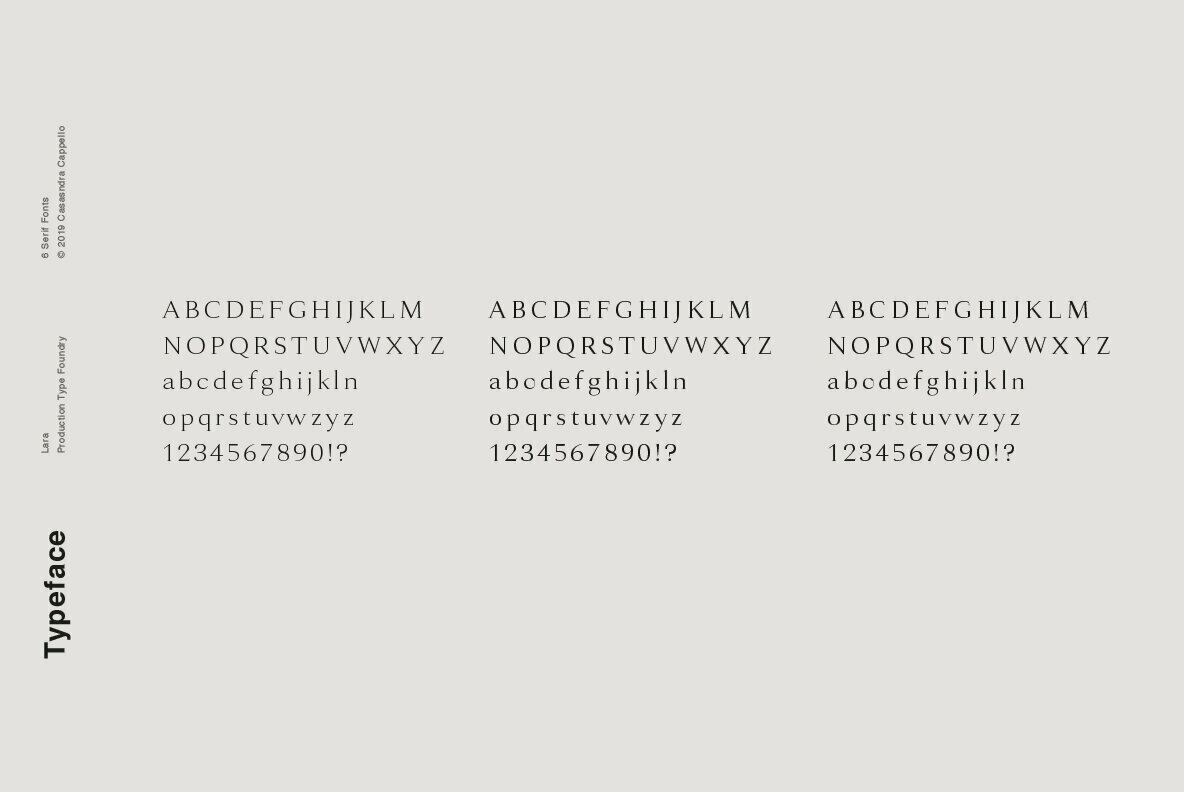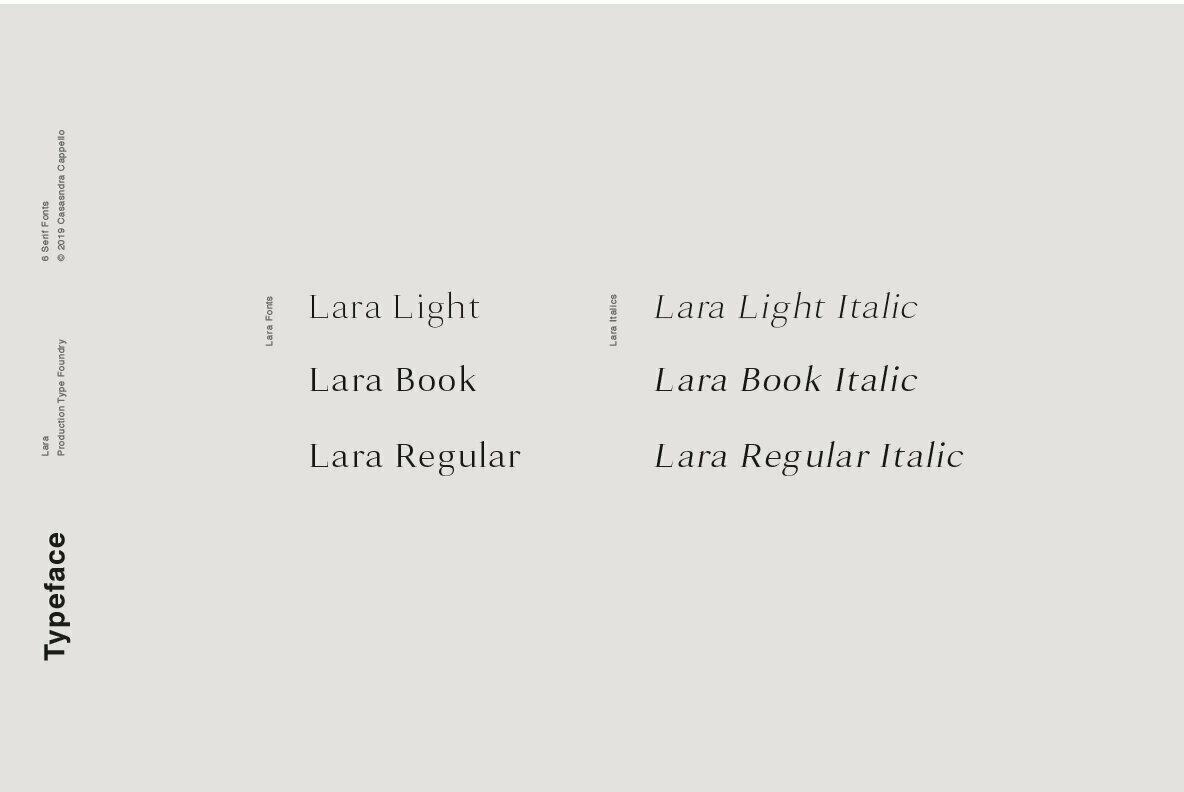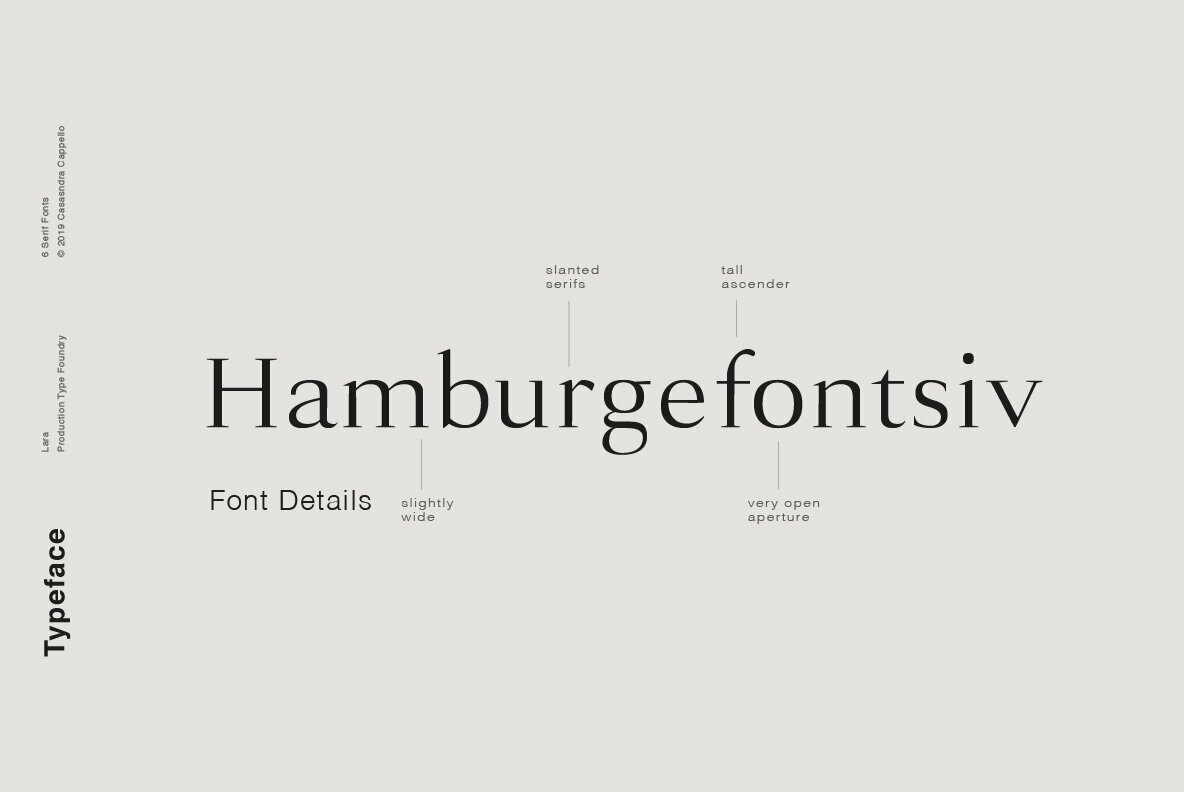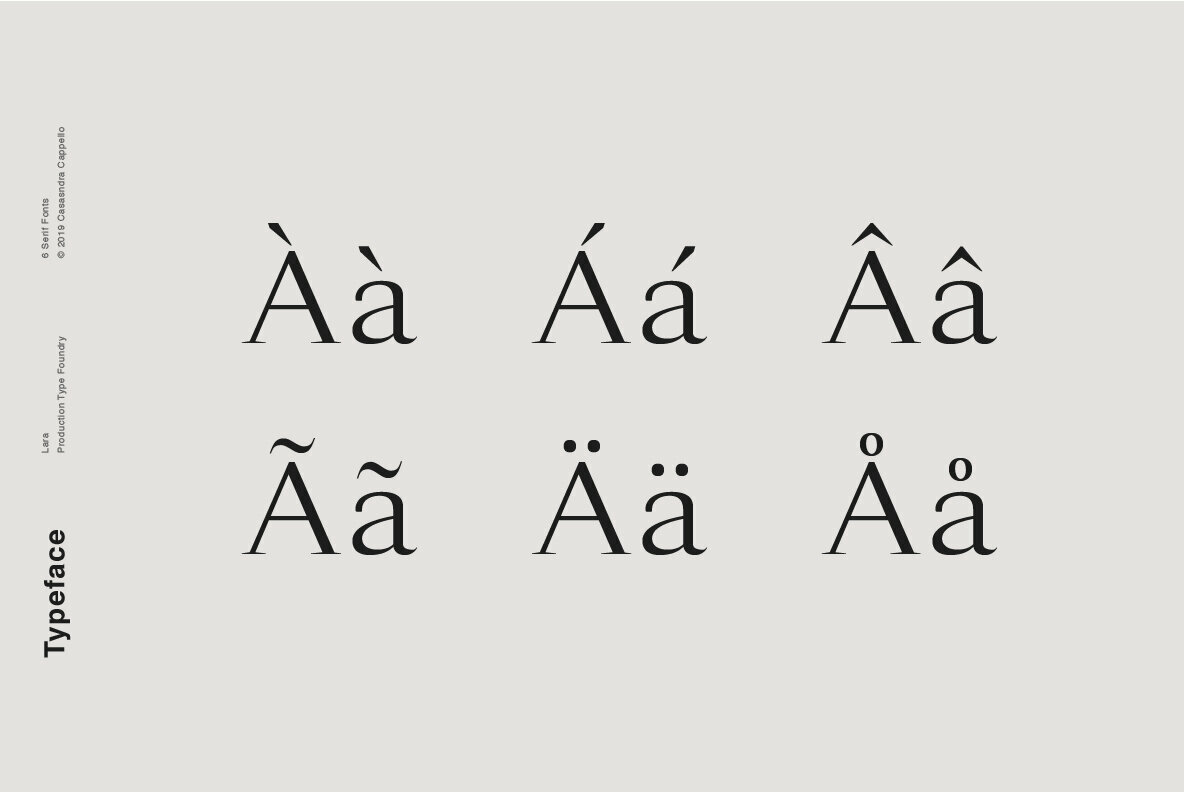
Lara Font
Lara is a classic and slightly curved serif typeface. Its striking look makes it perfect for headers. This font family includes all Latin characters (including accents), numbers, special characters, and punctuation.
Lara includes six fonts in OTF format: three weights and three italics.